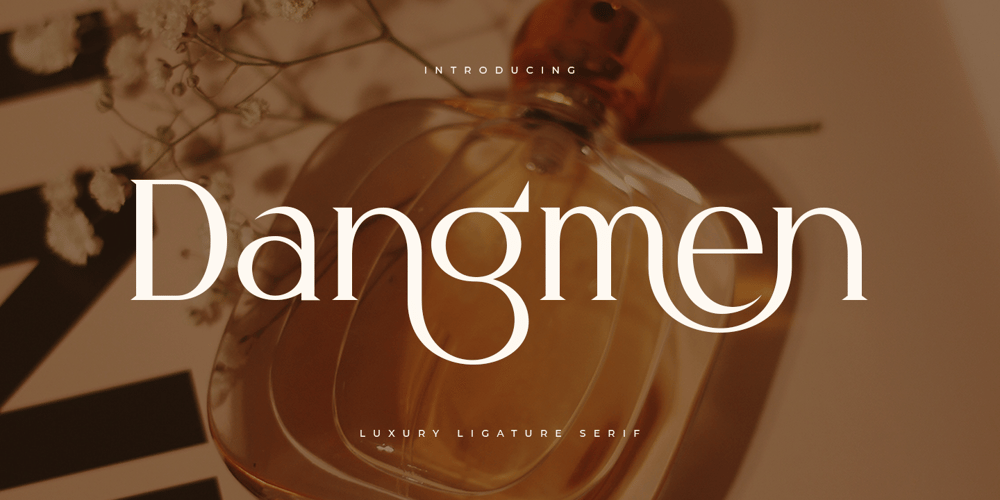
Dangmen Font Family was designed by Zamroni Hamzah and published by Sensatype Studio. Dangmen contains 1 styles and family package options. A serif that we created special for luxury branding needs, with extra ligature and alternates in unique shape will be ready to add value of your brand. It so nice to leverage designer or product owner that need solutions to make their design look more classy and modern. And specially for Dangmen font, We prepared any ligatures, and any alternate characters to help you create unlimited variations for your creative needs.Dangmen serif font ready with: Any options to get creative variations (combination of Alternate and Ligatures) Preview as a inspirations that you can do with Dangmen font Ready with Lowercase and Uppercase characters Wish you enjoy our font. ๐